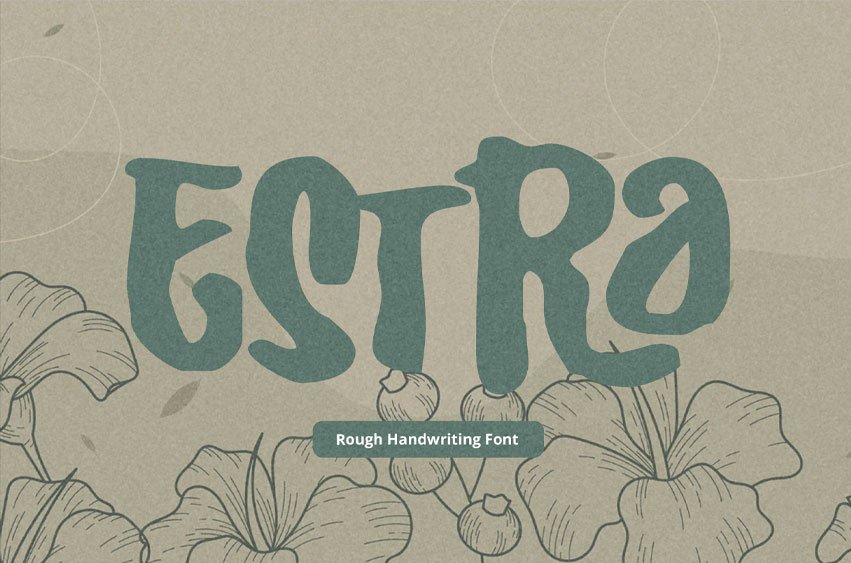
Estra Font is a rough bold handwriting font that captures raw energy with a modern twist. Its expressive strokes and textured edges bring a handcrafted feel, making every word look alive and full of character. Designed to stand out, Estra blends uniqueness with readability, making it perfect for eye-catching headers, impactful advertising banners, and bold branding projects.
With its playful yet confident personality, Estra adds a delightful edge to any design—whether you’re building a brand identity, creating social media visuals, or crafting standout packaging. It’s a font that doesn’t just communicate—it makes a statement.
Unique Rough Handwriting Font